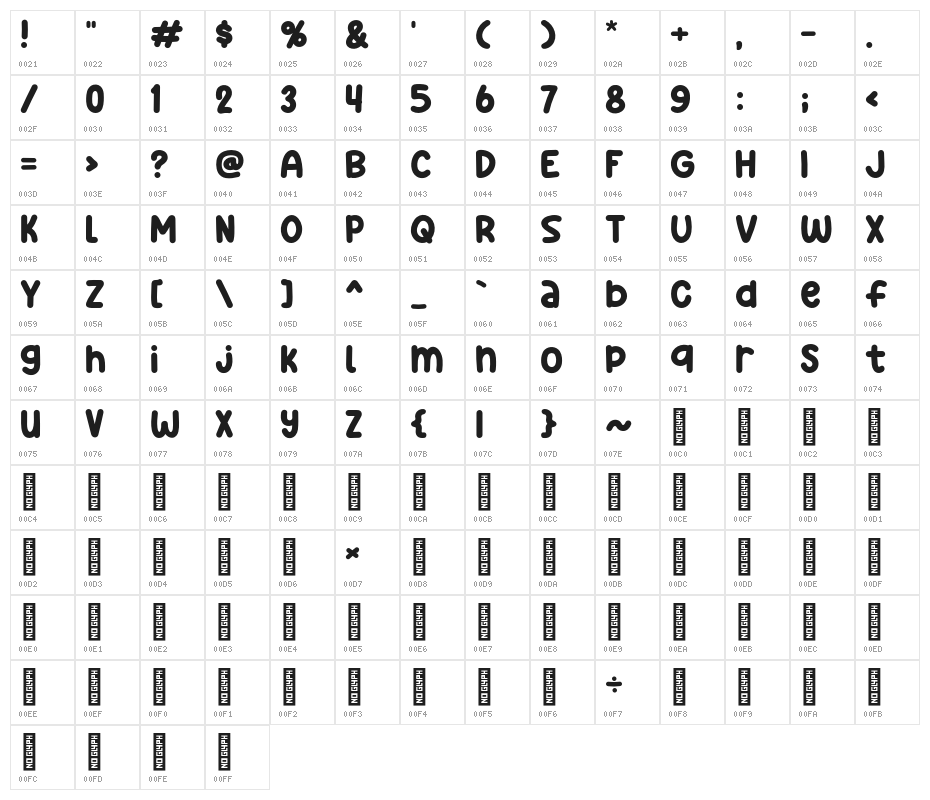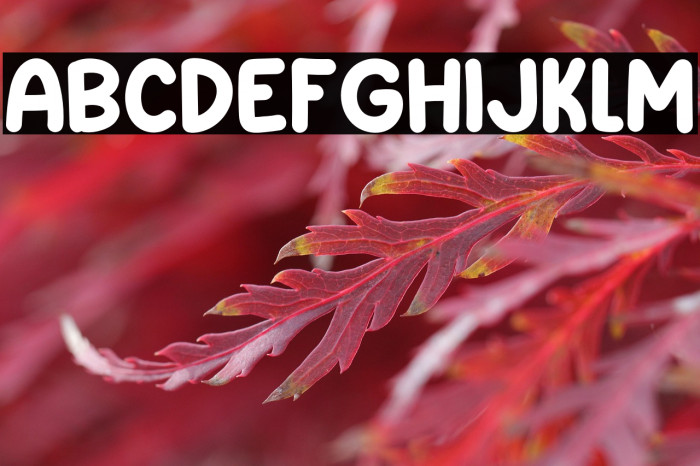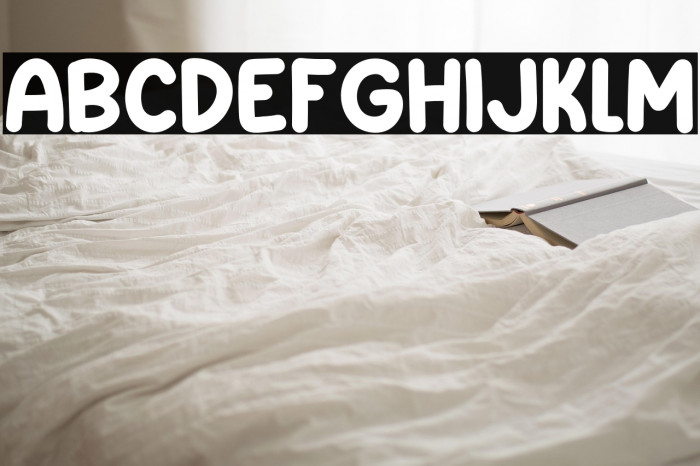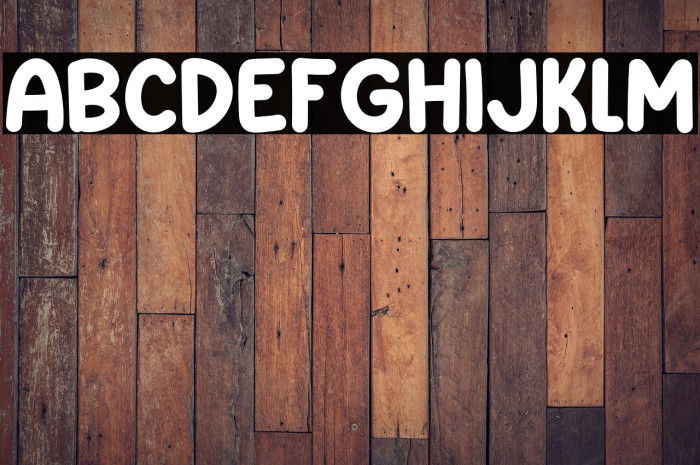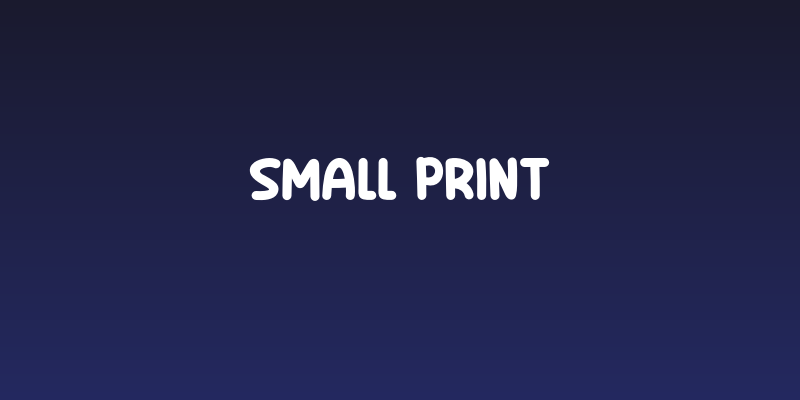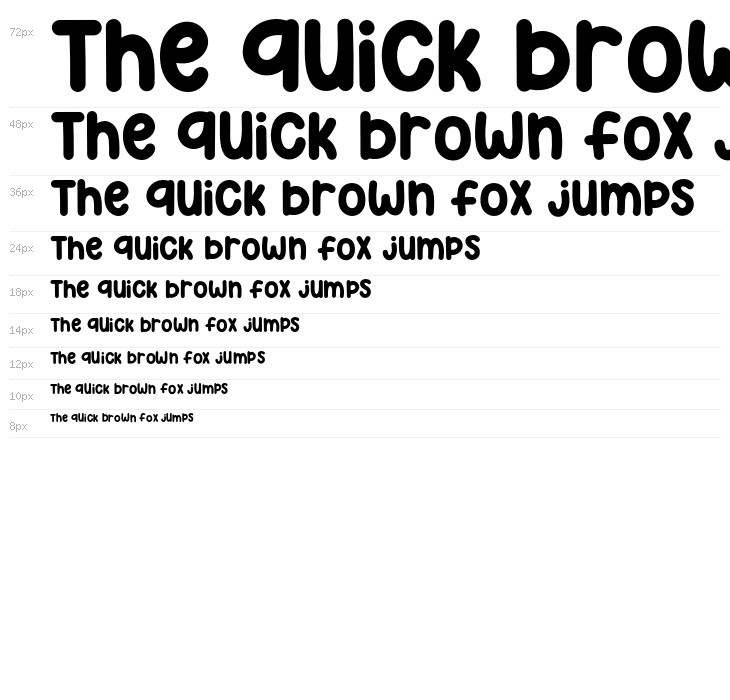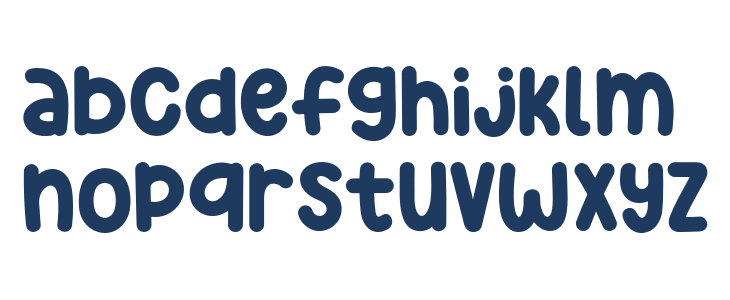
Small Print Font
Small Print Description
This playful and rounded font exudes a friendly and approachable vibe, characterized by its bold, bubbly letters. Each character is crafted with smooth curves and a consistent stroke width, giving it a uniform appearance. The font maintains a casual and informal style, making it ideal for projects that require a touch of whimsy and fun. Its legibility is enhanced by the generous spacing between characters, ensuring clarity even at smaller sizes. The font's design is versatile, suitable for both digital and print media, and it can easily capture attention with its distinctive and lively personality.
| Overall Style | Playful |
| Proposed Projects | Ideal for children's books, playful branding, casual invitations, and social media graphics. |